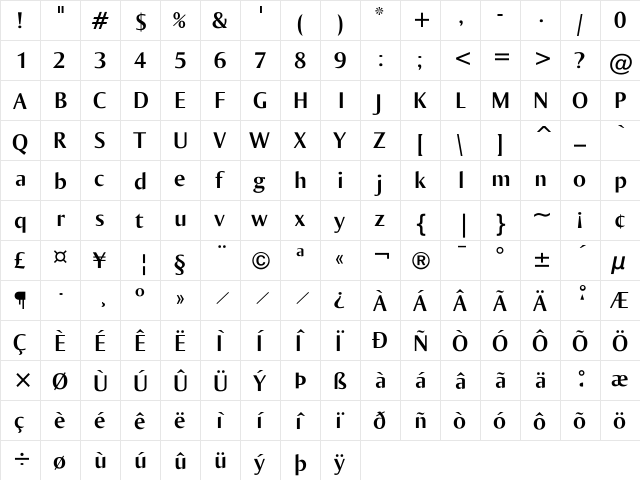
Ogirema Bold
Design Context for Ogirema Typeface
Ogirema takes a measured approach to typography — its balanced proportions and neutral character make it a reliable workhorse for both digital and print work. The heavy weight commands attention and anchors typographic hierarchies.